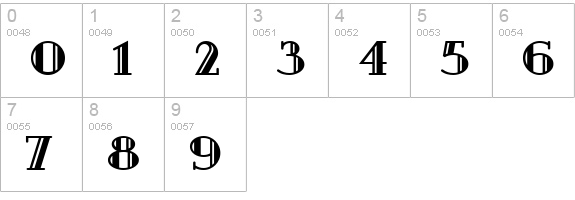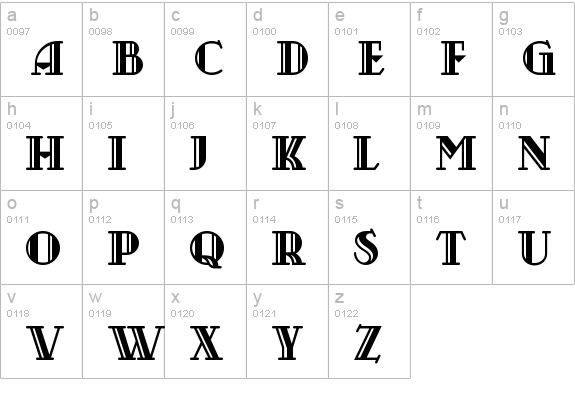
RedStarLineNF Font Details
Introducing RedStarLineNF, an exquisite font that seamlessly combines elegance and versatility. With its captivating curves and bold strokes, this font exudes a sense of sophistication and professionalism that is perfect for a wide range of design projects. RedStarLineNF boasts a unique blend of classic and modern elements, making it suitable for both traditional and contemporary designs. Whether you're working on a logo, branding materials, invitations, or editorial layouts, this font is sure to make a lasting impression. What sets RedStarLineNF apart is not only its stunning aesthetics but also its accessibility. This font is freely available to download at FontsMarket.com, making it easily accessible to designers, students, and enthusiasts alike. Say goodbye to costly font licenses and restrictions, as RedStarLineNF offers the freedom to create without limitations. Featuring a wide range of characters, including uppercase and lowercase letters, numerals, punctuation marks, and special symbols, RedStarLineNF ensures a seamless and cohesive design experience. Each character is meticulously crafted to maintain legibility and clarity, even at smaller sizes. The versatility of RedStarLineNF extends beyond its use in print. With its web-friendly format, this font is also ideal for digital projects such as websites, social media graphics, and online advertisements. Its clean lines and modern aesthetic will add a touch of sophistication to any online presence. Embrace the freedom of design with RedStarLineNF. Download this remarkable font today at FontsMarket.com and unlock a world of unlimited creativity. Whether you're a seasoned designer or just starting your creative journey, RedStarLineNF is the perfect companion to elevate your projects to new heights.